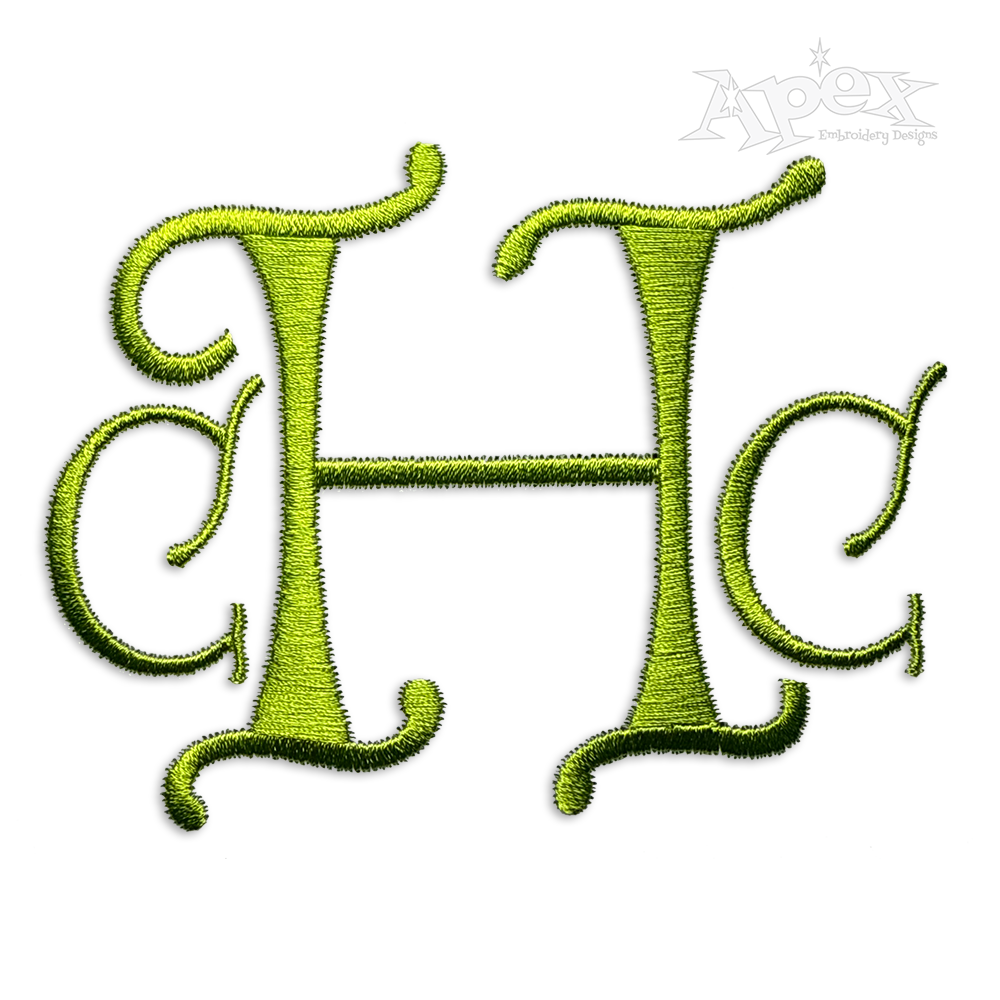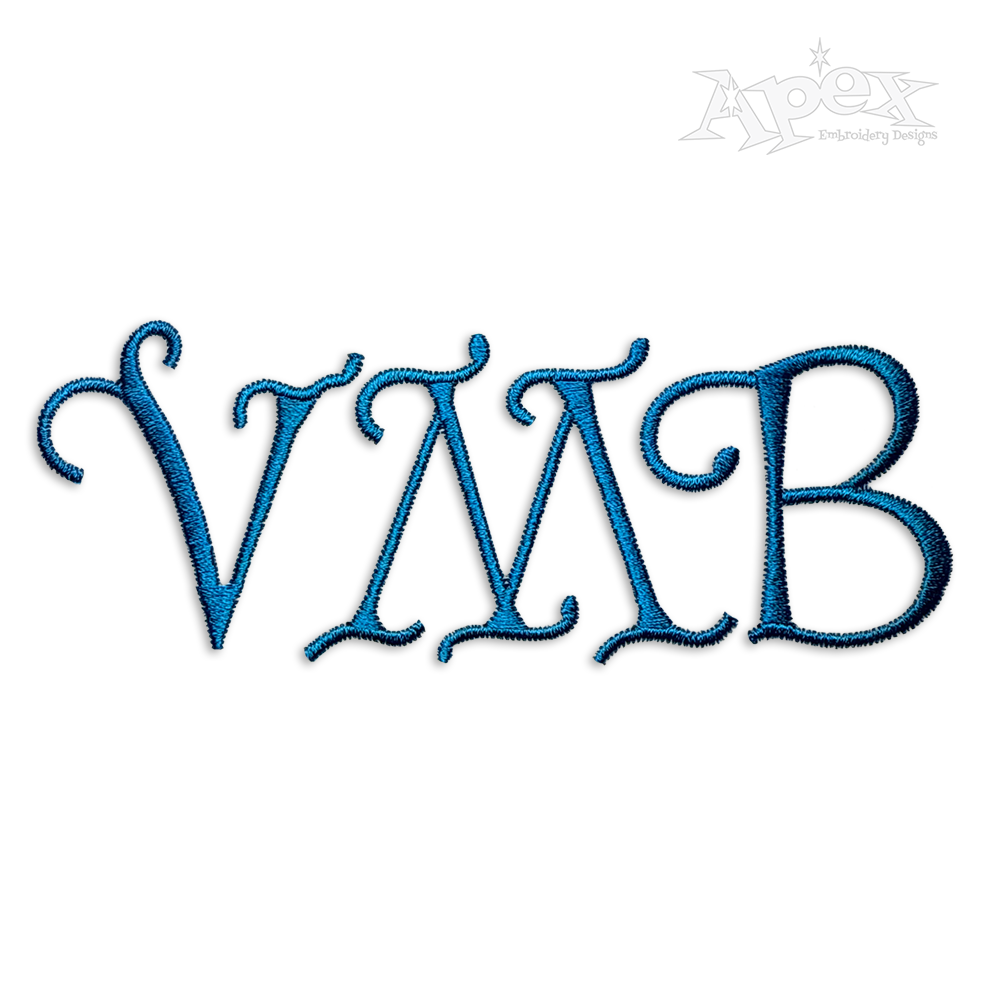
Nottingham Embroidery Font
When sketching the Nottingham Embroidery Font, our goal was to marry the grounded dignity of historical British typography with the whimsical, breathless grace of hand-inked calligraphy. Each glyph honors classical serif proportions before unfurling into an opulent, swooping curl that dances off the baseline. As master digitizers, translating these sweeping flourishes under the needle into dimensional satin columns is pure joy—yielding an alphabet that transforms everyday fabrics into aristocratic, heirloom-worthy personalized statements.
Project Ideas for Nottingham Embroidery Font
With its blend of traditional structure and romantic flair, Nottingham is an exceptional choice for bespoke monogramming across a variety of fabrics and textiles:
- Heirloom Bedding & Linens: Stitch sweeping initials across luxury Egyptian cotton duvet covers, euro shams, and crisp percale pillowcases.
- Bespoke Table Linens: Embroider tone-on-tone or contrasting initials onto mitered-corner linen cocktail napkins and grand formal runners.
- Bridal Party Gifting: Personalize silken wedding-morning robes, satin slippers, and keepsake handkerchiefs with a graceful, feminine flourish.
- Resort & Loungewear: Elevate waffle-knit spa robes, plush terry towels, and coastal canvas weekend totes.
- Sentimental Keepsakes: Create lasting family treasures on nursery blankets, Christening gowns, or velvet holiday stockings.
The asymmetric elegance of Nottingham's swirling tails lends itself beautifully to thoughtful, intentional positioning:
- Corner Diagonal: Angle single-letter monograms 1.5 to 2 inches from the corner hem on napkins and handkerchiefs, allowing the curl to point naturally toward the apex.
- Center Chest: Center single initials or traditional three-letter monograms between the second and third buttons on women's blouses, pajamas, or robes.
- Bedding Flanges: Align larger monograms centered above the hemstitch or along the open cuff edge of flat sheets.
- Tote Bags & Pouches: Position the 2.5-inch letters prominently in the top third of canvas carryalls for balanced, high-end resort styling.
Nottingham Craft & Letterform Details
The artistry of the Nottingham font lies in the delicate transition between structured vertical strokes and free-flowing ornamental curls. When digitizing this alphabet, we meticulously calculated the stitch angles through every twist to preserve natural light refraction, ensuring that fine rayon and polyester threads catch the light with liquid brilliance.
To prevent heavy stitch buildup where the sweeping curls intersect with the main stem, each junction is precision-underlaid and feathered. The tapering tails finish with ultra-fine, crisp needle penetrations, delivering razor-sharp clarity without puckering. Nottingham is a masterwork of digital craftsmanship designed to run smoothly on your machine while delivering the rich, hand-guided appearance of vintage bespoke embroidery.